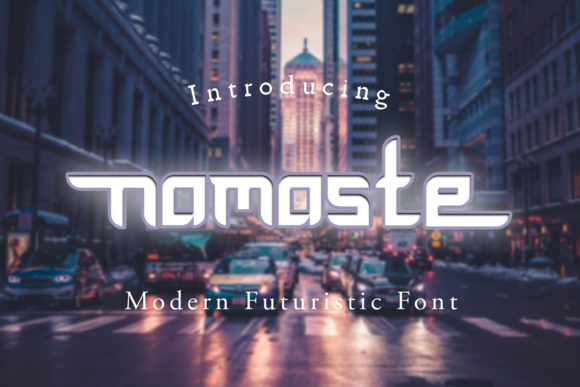
**Introducing Namaste Font: The Key to Unlocking Your Creative Potential**
Prepare to be captivated by Namaste Font, a futuristic and adaptable display font that will revolutionize your design journey. With its sleek lines and otherworldly aura, Namaste is the perfect choice for expressing your creativity and leaving an unforgettable impression.
Embark on an extraordinary voyage with Namaste Font, where the boundaries of imagination dissolve. Whether you're crafting eye-catching web designs, designing sleek business cards, or seeking a touch of magic in any creative endeavor, Namaste has the power to transform your vision into a tangible masterpiece.
Let Namaste Font be your guide as you navigate the digital realm. Its versatility knows no bounds, making it the ideal companion for a symphony of design projects. From ethereal website layouts to polished presentations, Namaste empowers you to communicate with clarity and flair.
Unleash the boundless possibilities with Namaste Font. Its unique character will captivate your audience, leaving them spellbound by your creations. Embrace the future of design with Namaste Font, and let your imagination soar to unprecedented heights.
**Why You Can't Resist Namaste Font**
* **A Cosmic Canvas for Your Creativity:** Namaste Font is your passport to a universe of creative possibilities, inviting you to paint your ideas with a futuristic flair.
* **Effortless Elegance:** Experience the joy of effortless design as Namaste Font effortlessly elevates your projects to new levels of sophistication and grace.
* **Unleash Your Inner Visionary:** Break free from the mundane and embrace the extraordinary. Namaste Font empowers you to manifest your unique design aesthetic.
* **A Timeless Treasure:** Invest in a font that will endure the test of time. Namaste Font is a timeless masterpiece that will serve as a cornerstone of your design arsenal.
* **A Font for All Seasons:** Whether you're a seasoned designer or just starting your creative journey, Namaste Font is accessible and adaptable to all skill levels. Its intuitive nature makes it a joy to use.
**Embrace the Namaste Font Experience:**
* **Web Design:** Craft websites that transcend the ordinary, captivating visitors with otherworldly designs.
* **Business Cards:** Leave a lasting impression with business cards that exude professionalism and creativity.
* **Social Media Graphics:** Elevate your social media presence with eye-catching graphics that demand attention.
* **Presentations:** Engage your audience with presentations that come to life with Namaste Font's futuristic charm.
* **Unlimited Creativity:** Unleash your imagination and explore countless design possibilities, where only your creativity sets the limits.
Join the ranks of visionary designers who have embraced Namaste Font. Let its futuristic allure ignite your creativity and guide you toward design excellence. Experience the Namaste Font difference today and unlock a world of boundless possibilities.